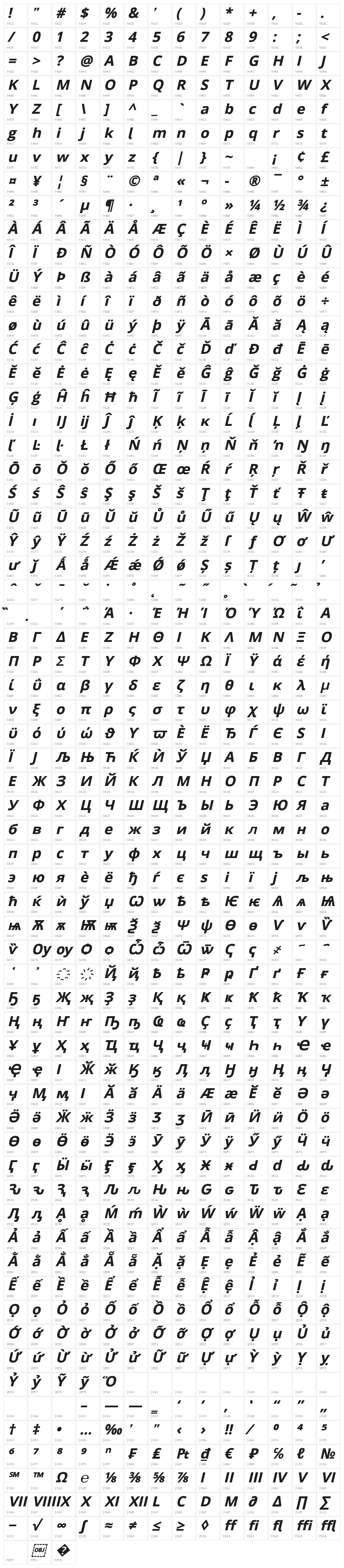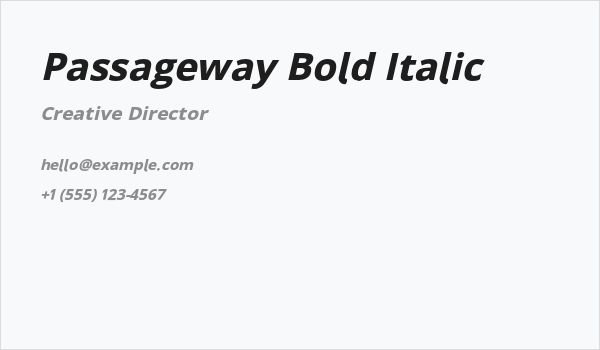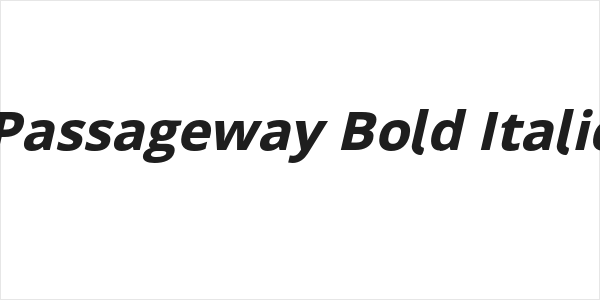
Passageway Bold Italic Font
Passageway Bold Italic Description
This font is a bold and italicized typeface that exudes a modern and dynamic feel. The characters are slightly slanted, giving a sense of movement and energy. The bold weight ensures strong visibility and impact, making it suitable for attention-grabbing headlines or titles. The letterforms are clean and sans-serif, offering a contemporary look that is both professional and approachable. The numbers and special characters maintain the same bold and italicized style, ensuring consistency across all text elements. The overall design is versatile, fitting well in both digital and print media.